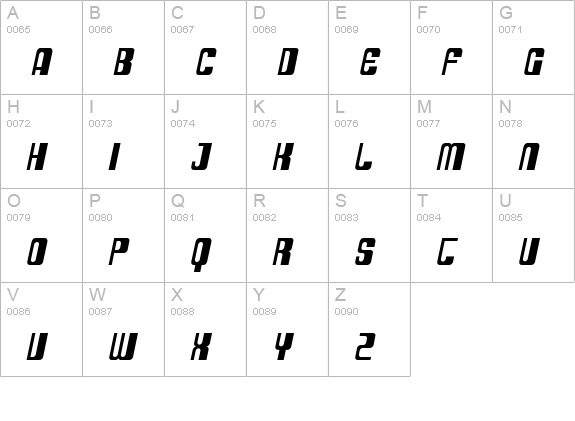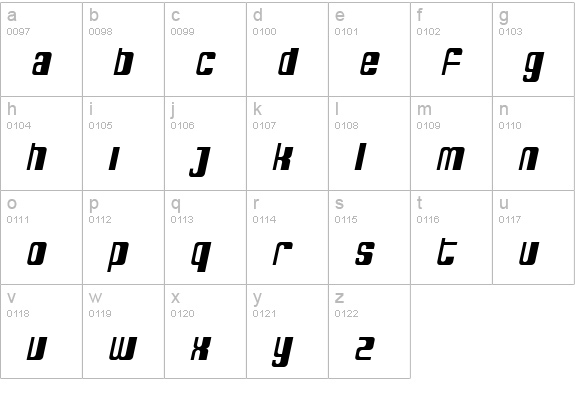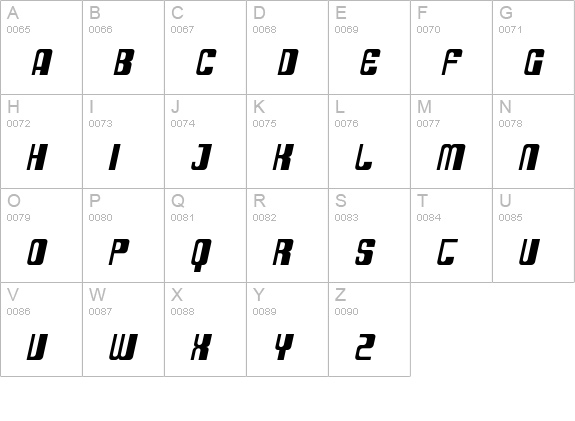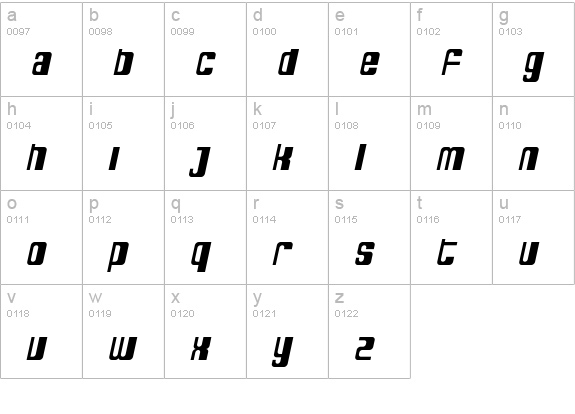
SF DecoTechno Oblique Font Details
SF DecoTechno Oblique is a distinctive, italic variant in the SF typeface family \xE2\x80\x94 well suited to design and typography projects.
SF DecoTechno Oblique font is a stunning display typeface that effortlessly combines the elegance of Art Deco with the futuristic vibes of Techno. With its oblique angles and sleek lines, this font exudes a sense of modern sophistication and avant-garde style. The bold and distinctive letterforms of SF DecoTechno Oblique make it perfect for headlines, logos, posters, and any design project that requires a strong visual impact. Its unique combination of sharp edges and smooth curves creates a harmonious balance that is both captivating and eye-catching. One of the best features of SF DecoTechno Oblique is that it is available for free download at FontsMarket.com. This means that designers, creatives, and typography enthusiasts can easily access and utilize this exceptional font in their projects without any financial constraints. Whether you are working on a branding campaign, a magazine layout, or a website design, SF DecoTechno Oblique will undoubtedly add a touch of modernity and sophistication to your work. Its versatility and timeless appeal make it a must-have font for any designer looking to make a bold statement. So why wait? Take advantage of the opportunity to freely download SF DecoTechno Oblique at FontsMarket.com and let your creativity soar to new heights. Embrace the elegance of Art Deco and the futuristic allure of Techno with this exceptional font that is sure to leave a lasting impression.